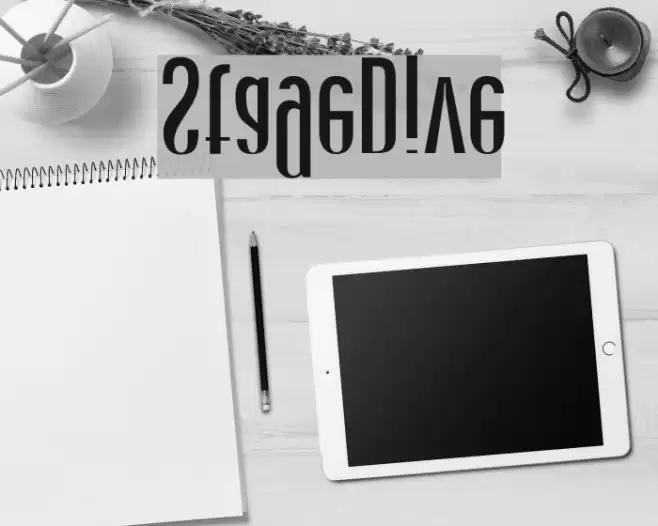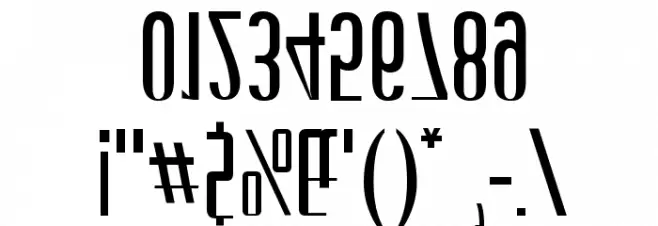
StageDive Font
StageDive Description
This font features a highly stylized and decorative design with a unique twist on traditional letterforms. The characters are elongated and have a distinct vertical emphasis, creating a striking visual impact. The uppercase letters are particularly bold, with sharp angles and a futuristic aesthetic. The lowercase letters maintain the same elongated style, providing a cohesive look throughout the typeface. Numbers and special characters are designed to match the overall theme, ensuring consistency across all elements. This font's unique style makes it suitable for creative and modern design projects.
A decorative and elongated font with a futuristic and bold style from Uncategorized fonts.
- Proposed Projects: Ideal for posters, album covers, branding, and any project requiring a modern and eye-catching typeface.